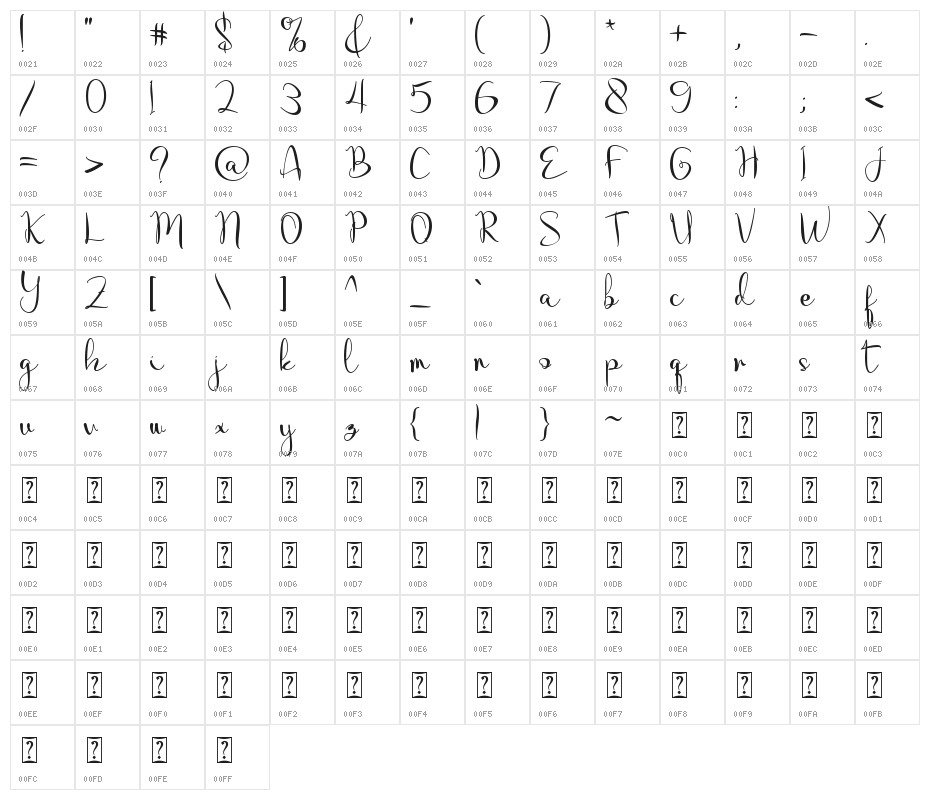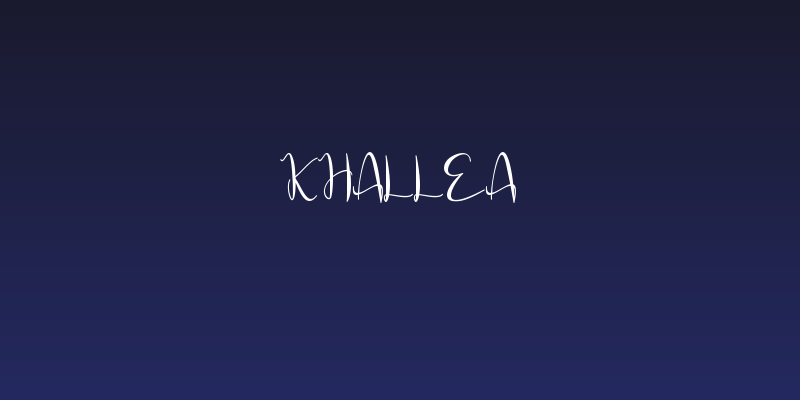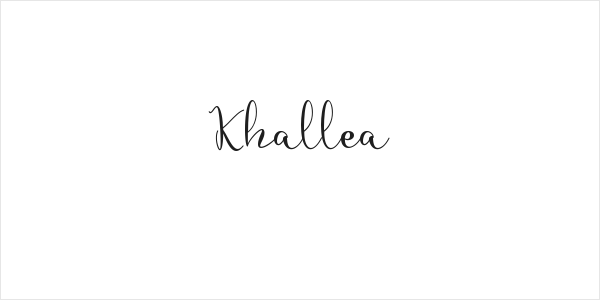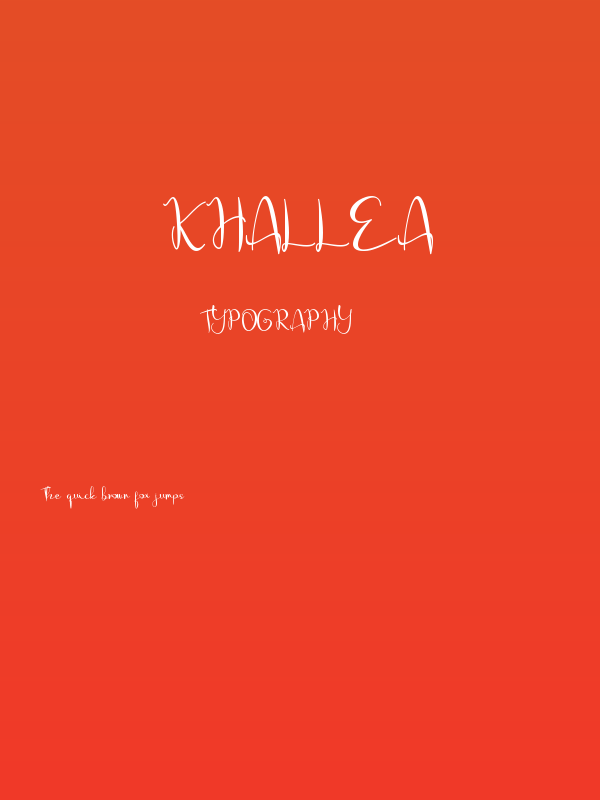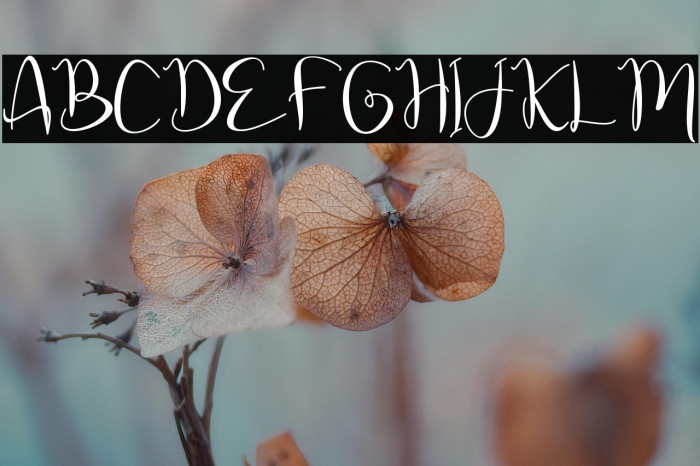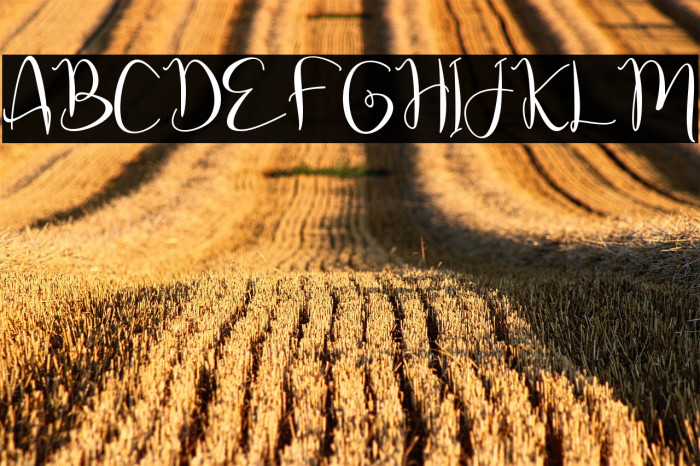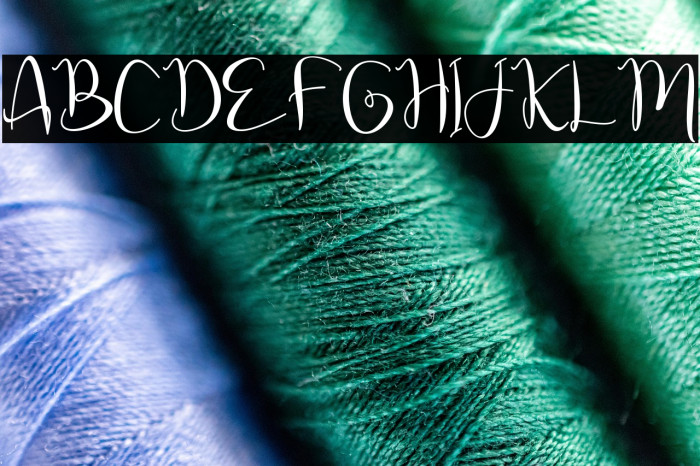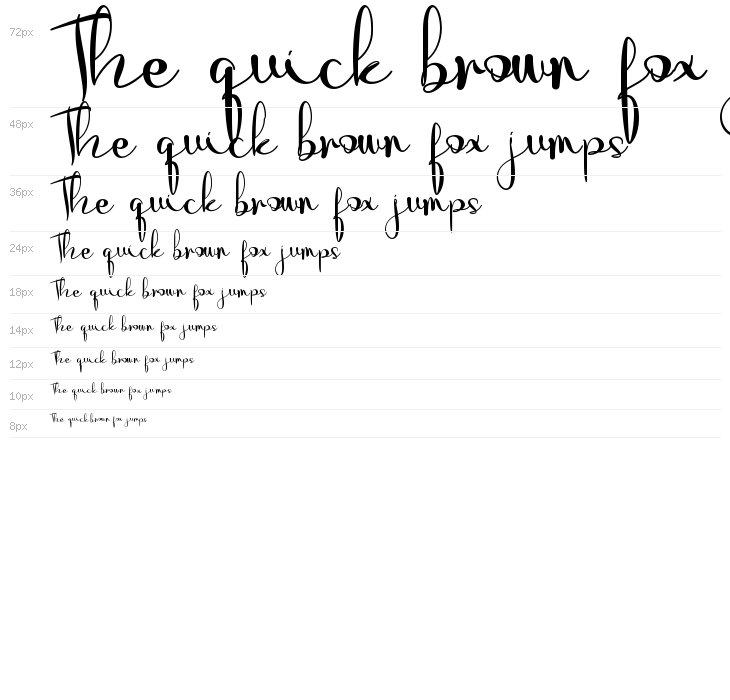
Khallea Font
Khallea Description
This font exhibits a flowing, cursive style with a playful and elegant touch. The uppercase letters are characterized by their tall, sweeping ascenders and descenders, giving them a sense of movement and grace. The lowercase letters maintain a consistent flow, with smooth curves and loops that enhance the handwritten feel. The numerals are distinct and easy to read, with a slight slant that complements the overall script style. Special characters are thoughtfully designed, integrating seamlessly with the rest of the font. The font's overall appearance is both sophisticated and approachable, making it suitable for a variety of creative applications.
| Overall Style | Elegant, Playful |